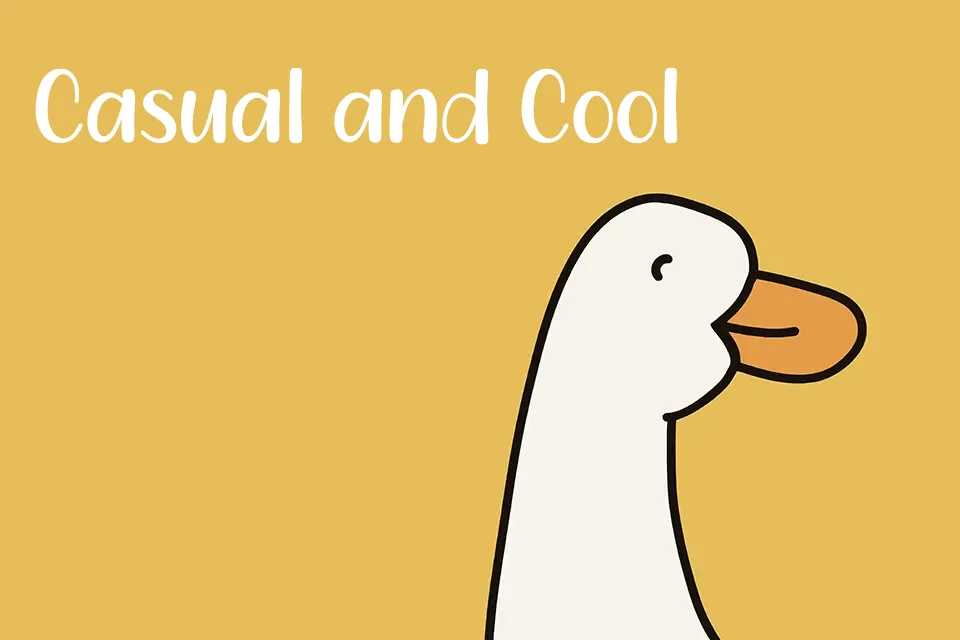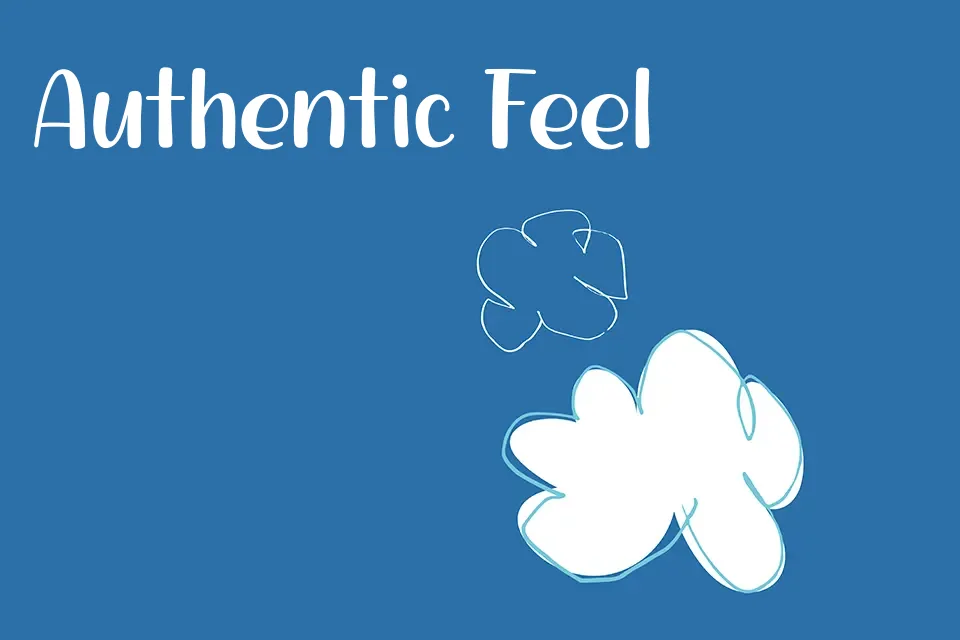
Catread Font
A casual apparel graphic or children’s book cover benefits significantly from the approachable character of Catread Font. The typeface features rounded terminals, gentle stroke variations, and slightly irregular proportions that produce an authentic hand-drawn appearance. Its balanced letter spacing ensures solid legibility across larger display scales, allowing individual characters to remain distinctly recognizable. However, the organic contour irregularities and informal alignment make the design less suitable for continuous body text or structured editorial paragraphs where clean typographic uniformity is required. For quick title treatments, playful merchandise, and prominent display banners, the letterforms deliver a welcoming aesthetic that communicates immediate warmth.
Best For: children’s book covers, playful merchandise labels, greeting card headlines, casual apparel graphics
Not Ideal For: continuous body text, legal contracts, dense editorial layouts, small interface labels
Perfect for headline, kids, and packaging, with a creative and display style.